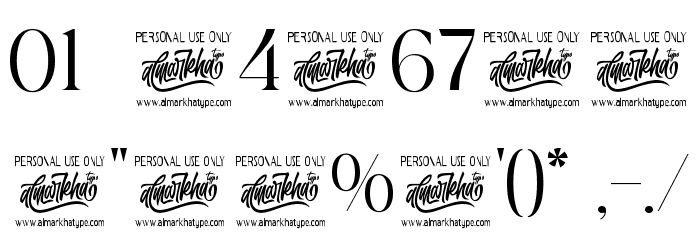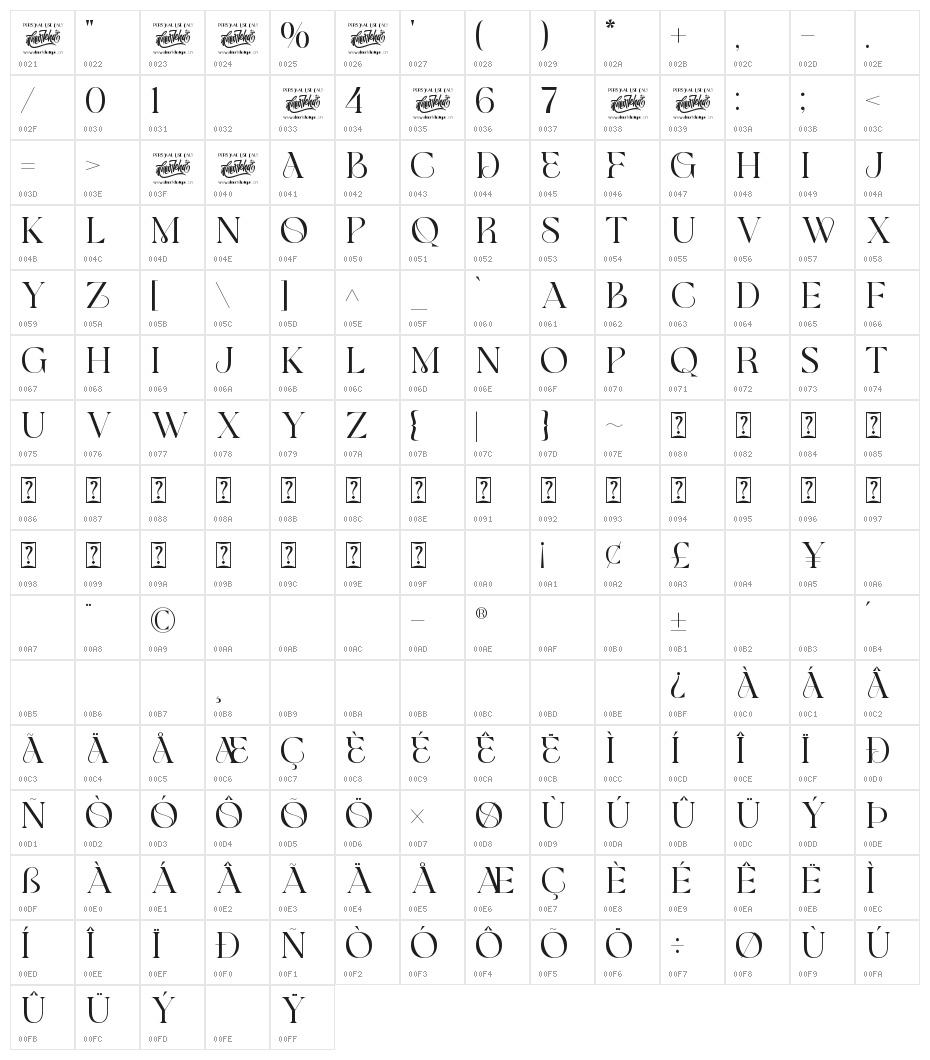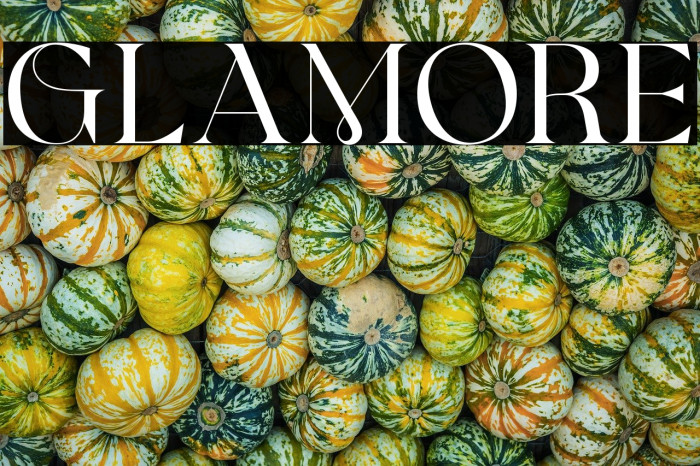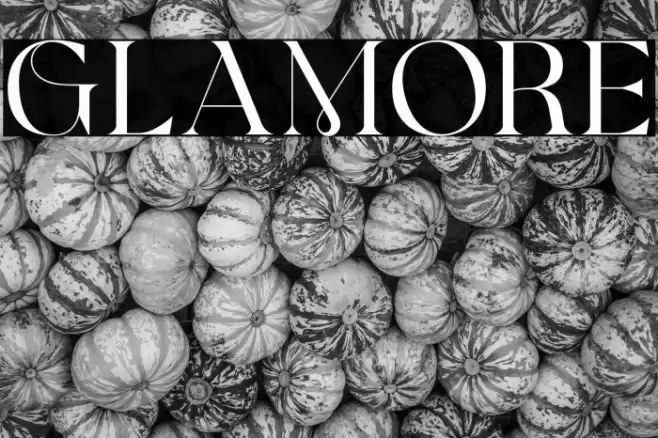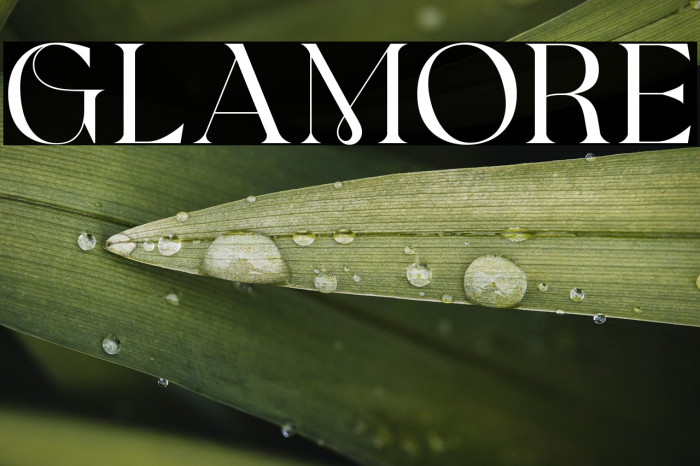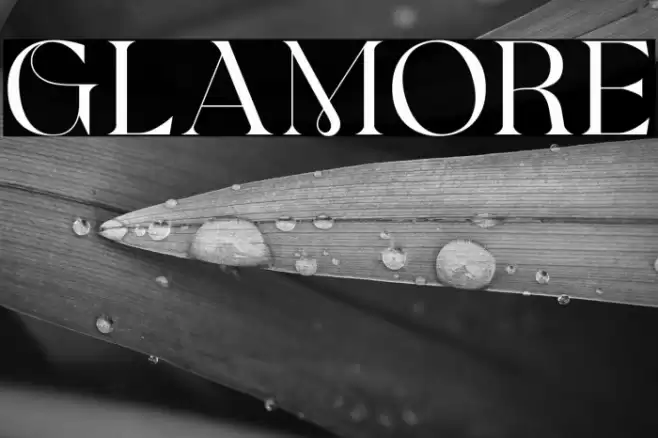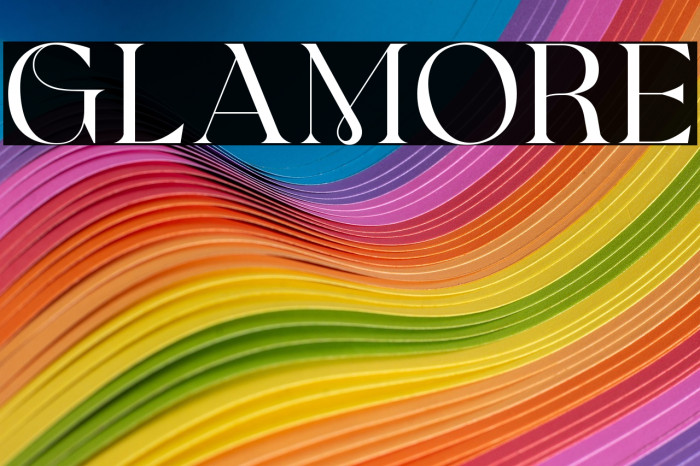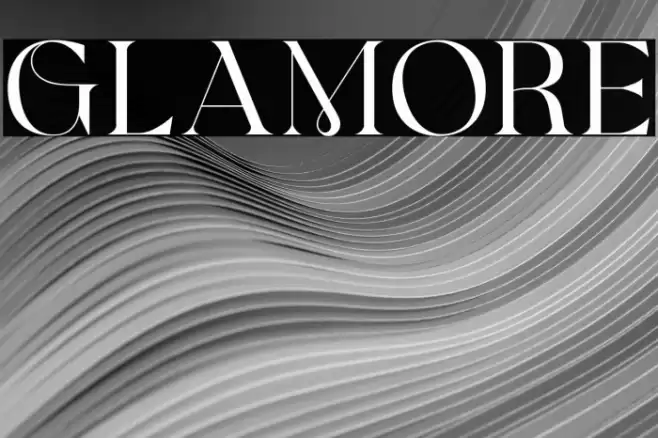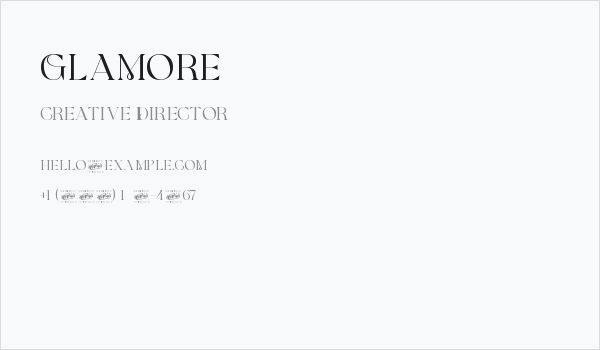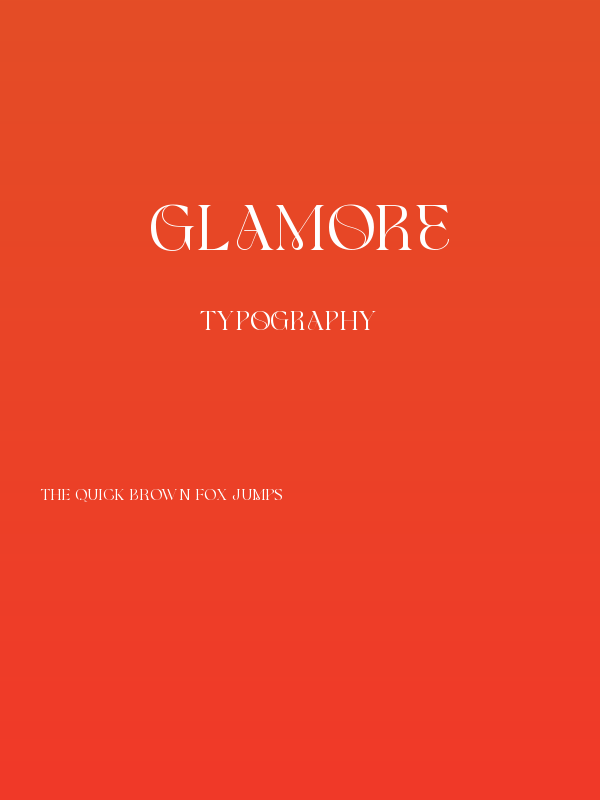
Glamore Font
Glamore Description
This font features a sophisticated and elegant design, characterized by its high contrast between thick and thin strokes. The uppercase letters exhibit a unique blend of classic serif elements with modern twists, such as exaggerated curves and stylish flourishes. The lowercase letters maintain a consistent style, offering a harmonious flow that complements the uppercase set. The numerals are designed with a similar attention to detail, ensuring readability while maintaining the font's overall aesthetic. Special characters are included, each crafted to match the font's refined style, making it suitable for a variety of design applications.
| Proposed Projects | Ideal for luxury branding, editorial design, wedding invitations, and high-end product packaging. |